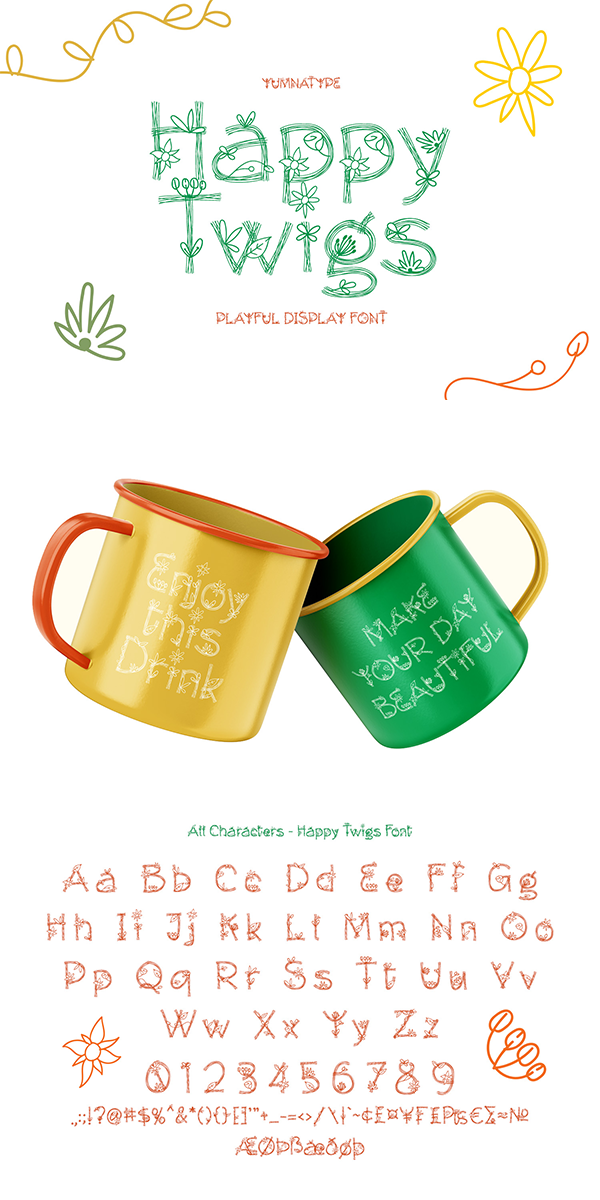
Happy Twigs Font
About Happy Twigs
Happy Twigs is a twig branch-inspiring display font of which letters are made in a lot of lines forming complex, attractive displays. Its unique character is due to the complex, detailed displays with which you can apply for any artistic, creative designs.
Such a display font is applicable for any nature related products. Its complex, attractive letters will help you emphasize the messages you deliver and express different nuances depending on the design and color choices. In addition, it shows crowded and detailed, yet artistic and attractive nuances. Happy Twigs provides a clipart in accordance with the font theme as a bonus and features you can enjoy.
Happy Twigs fits best for various design projects, such as brandings, headings, magazine covers, quotes, printed products, merchandise, social media, etc. Find out more ways to use this font by taking a look at the font preview.